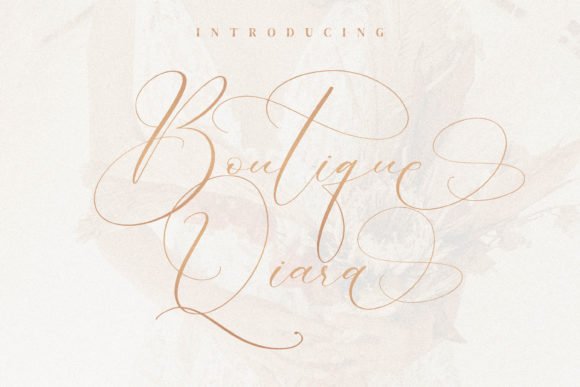
Boutique Qiara Font: Elevate Your Design with Elegance
Have you ever found yourself staring at a blank canvas, waiting for inspiration to strike? For many of us, it’s the spark of a new project that gets our creative juices flowing. And for designers, that spark often comes in the form of a beautiful font – like the enchanting Boutique Qiara Font. This stunning script font is designed to add a touch of whimsy and sophistication to any design, making it perfect for invitations, wedding stationery, and more.
The Boutique Qiara Font is a masterclass in elegance, with its thin lettering and delicate curves creating a sense of refinement and poise. But what really sets it apart is its PUA encoding, which makes it easy to access all the glyphs and swashes you need to create truly show-stopping designs. Whether you’re a seasoned pro or just starting out, the Boutique Qiara Font is an invaluable addition to any designer’s toolkit.
- Unique Characteristics: Elegant, modern script font with a unique blend of traditional and digital elements, perfect for creating a sophisticated and stylish look.
Boutique Qiara Font Review
I was excited to dive into the Boutique Qiara Font, and overall, I’m impressed with its unique charm ✨. The font’s elegant script style, perfect for luxury branding, caught my attention. The combination of soft, flowing lines and ornate details adds a touch of sophistication, making it ideal for high-end fashion, beauty, or lifestyle brands.
- Unique charm and elegance ✨
- Soft, flowing lines that add a touch of sophistication
- Perfect for luxury branding, fashion, beauty, or lifestyle
However, I do have some reservations ⚠️. The font’s complexity can make it difficult to read in smaller sizes or when used extensively in body text. Additionally, some characters may require manual adjustments to ensure proper spacing, which can be time-consuming.
- Difficult to read in smaller sizes or body text ⚠️
- May require manual adjustments for proper spacing
Overall, the Boutique Qiara Font is a stunning addition to any luxury brand’s typography palette. While it may have some limitations, its unique charm and elegance make it worth considering for high-end projects. Just be mindful of its use in body text and be prepared for some manual adjustments.
For optimal results, use the font in a clean and minimalist design to showcase its elegant and sophisticated style.
For optimal results, use the font in a high-contrast design with plenty of negative space to showcase its elegance.
For optimal results, use the font in a clean and simple design to convey professionalism and sophistication.
The Boutique Qiara Font is ideal for use in high-end branding, luxury packaging, and elegant invitations.
Some tips for getting the most out of the font include:
- Using it in a combination with a simple, modern sans-serif font for contrast.
- Applying it in a bold or italic style to add